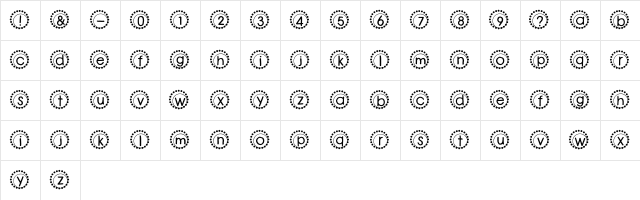
2Peas Ring Ding Regular Free Font
2Peas Ring Ding Regular
Design Context for 2Peas Ring Ding
2Peas Ring Ding is a composed and adaptable typeface that performs quietly and consistently across a wide range of design contexts.